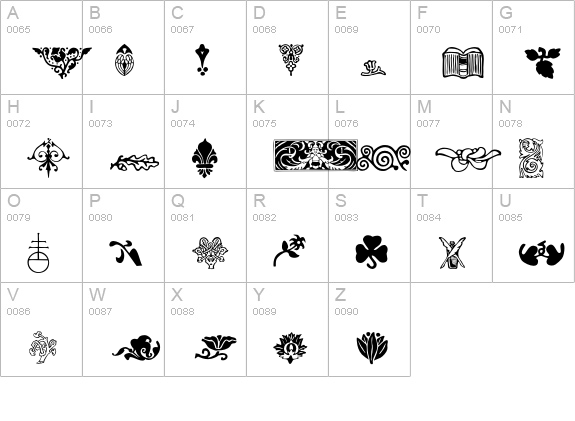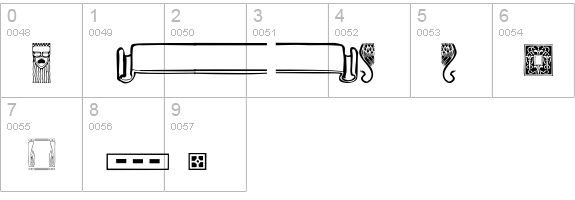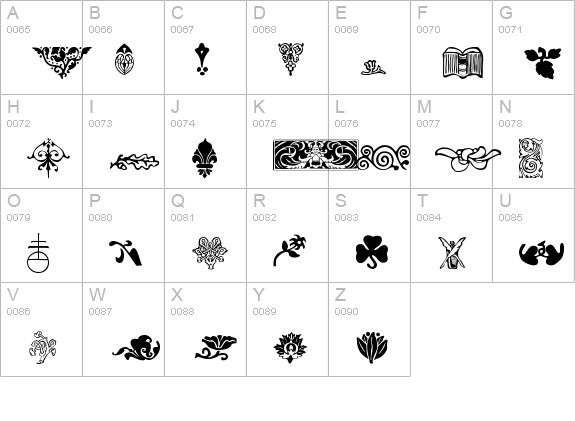
ArtsandCrafts-OrnamentsTwo Font Details
ArtsandCrafts-OrnamentsTwo font is a delightful and whimsical typeface perfect for adding a touch of charm to your creative projects. With intricate details and ornamental elements, this font is sure to make your designs stand out. Whether you are working on invitations, greeting cards, or other artistic endeavors, ArtsandCrafts-OrnamentsTwo font will bring a touch of elegance and whimsy to your work. Best of all, ArtsandCrafts-OrnamentsTwo font is available for free download at FontsMarket.com. This means you can easily access this beautiful font and incorporate it into your projects without any cost. Don't miss out on the opportunity to enhance your designs with this unique and eye-catching font. Download ArtsandCrafts-OrnamentsTwo today and let your creativity shine!